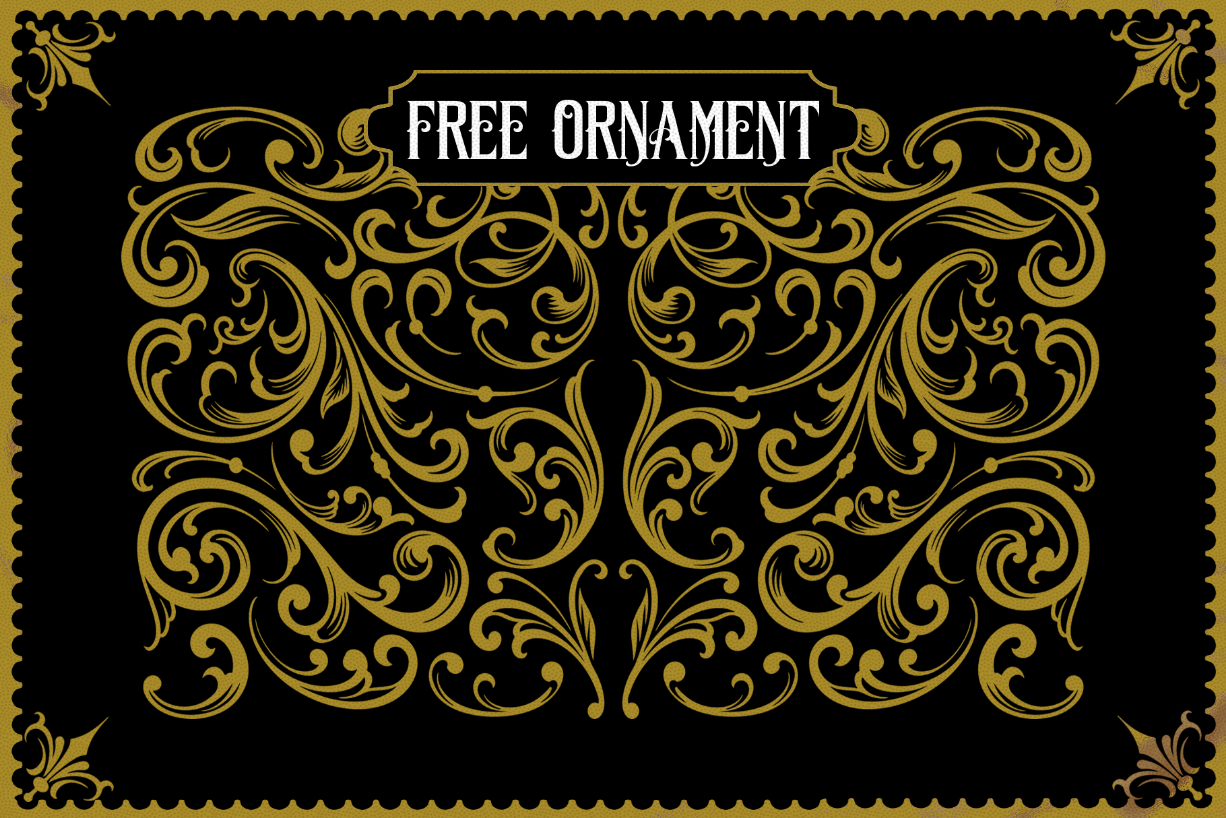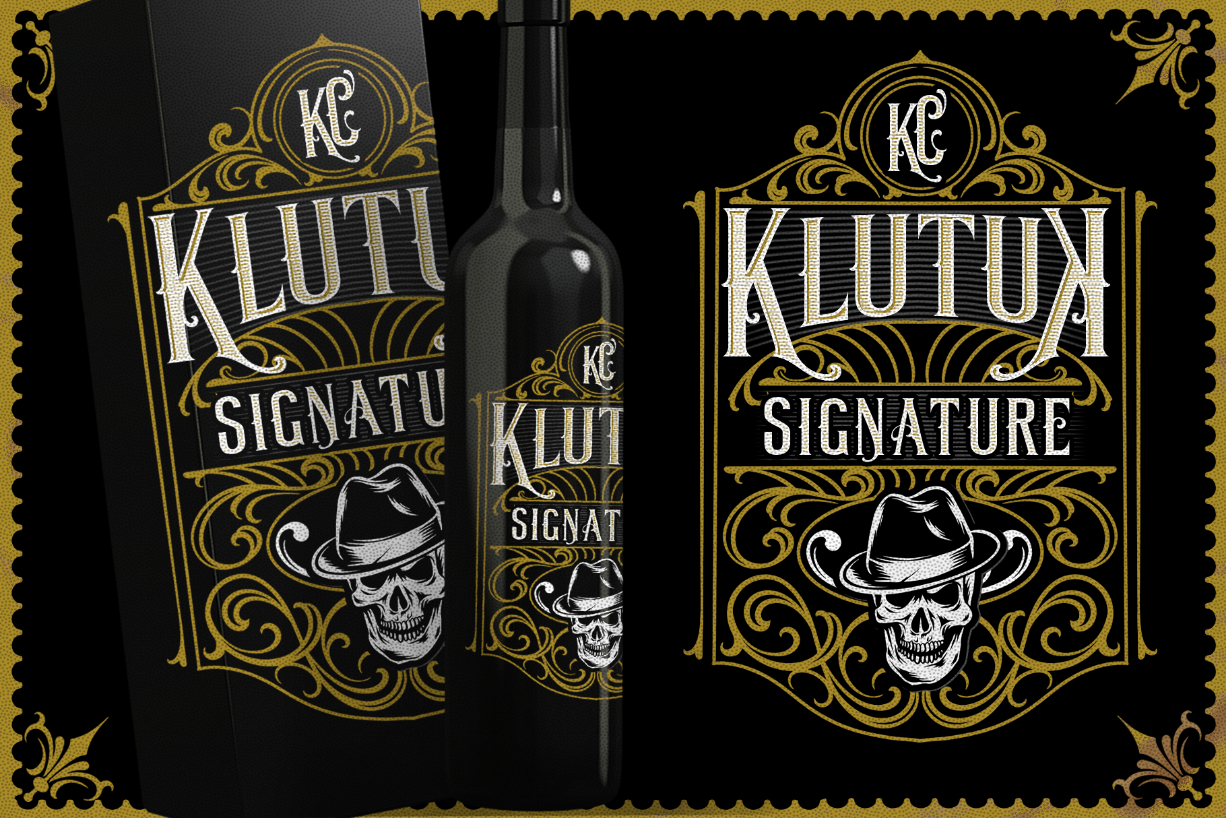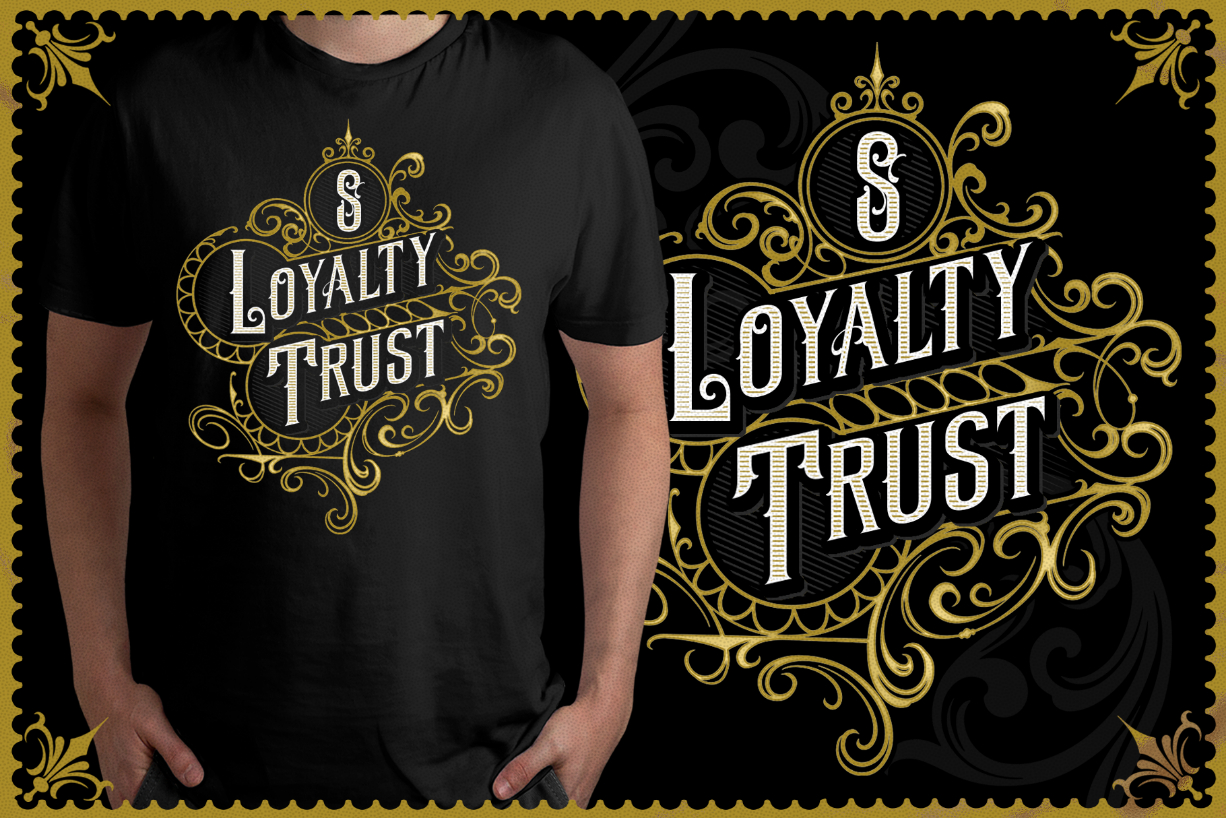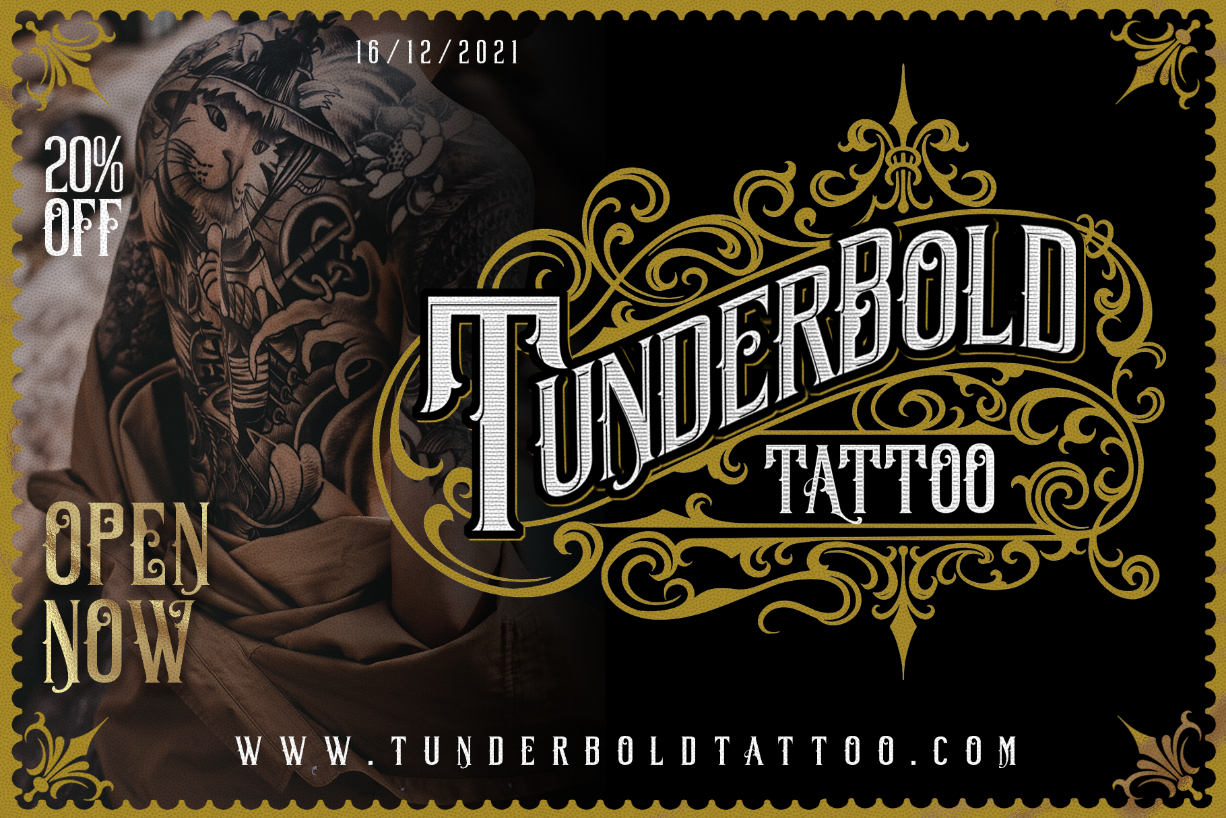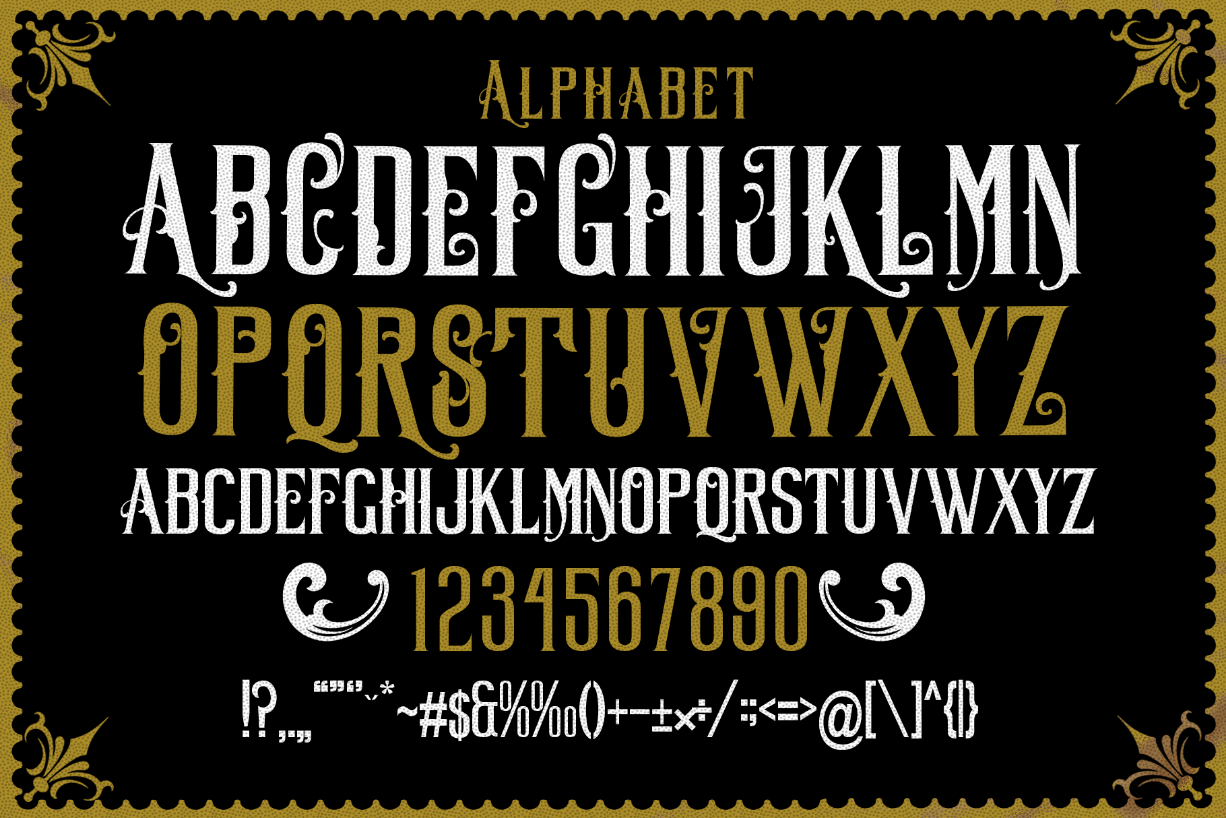
Milwaukes Font
About Milwaukes Font
Milwaukes is a bold, distinct and vintage styled blackletter font. Add it confidently to your projects, and you will love the results. This font is ideal for writing web designs, business cards, or pretty much anything else that requires a unique touch.